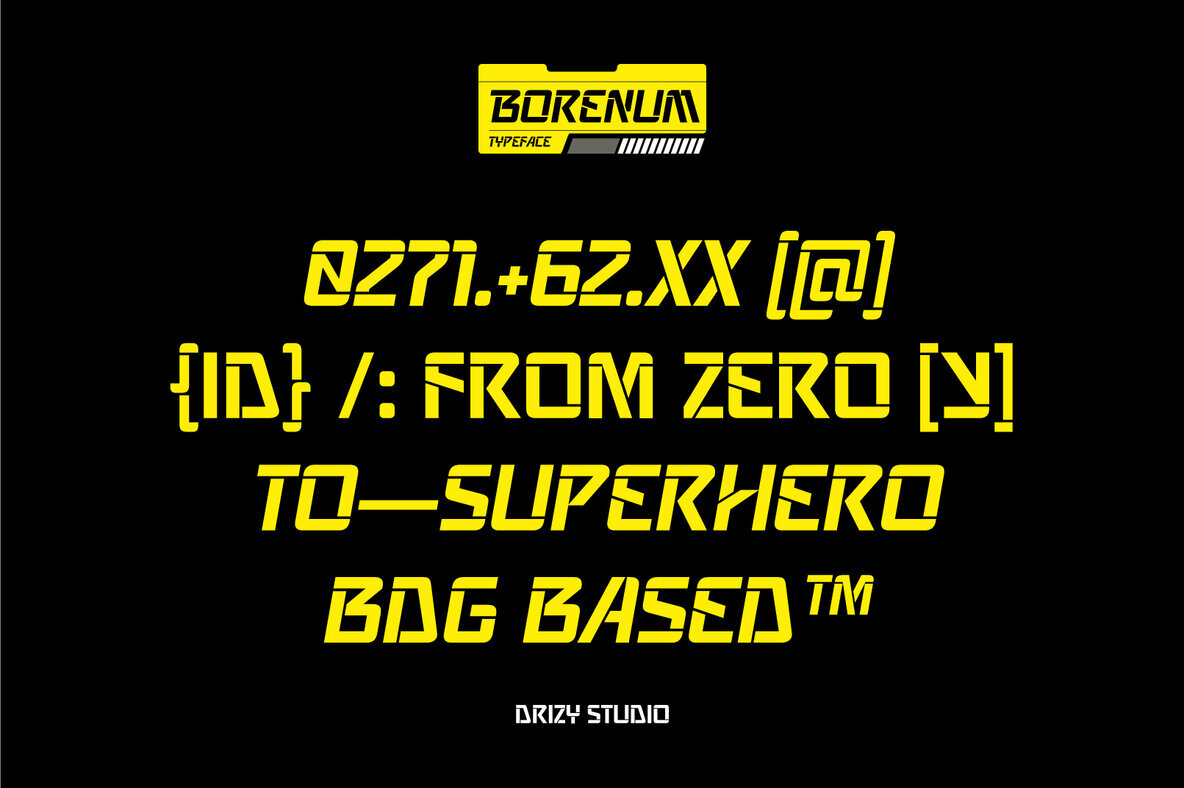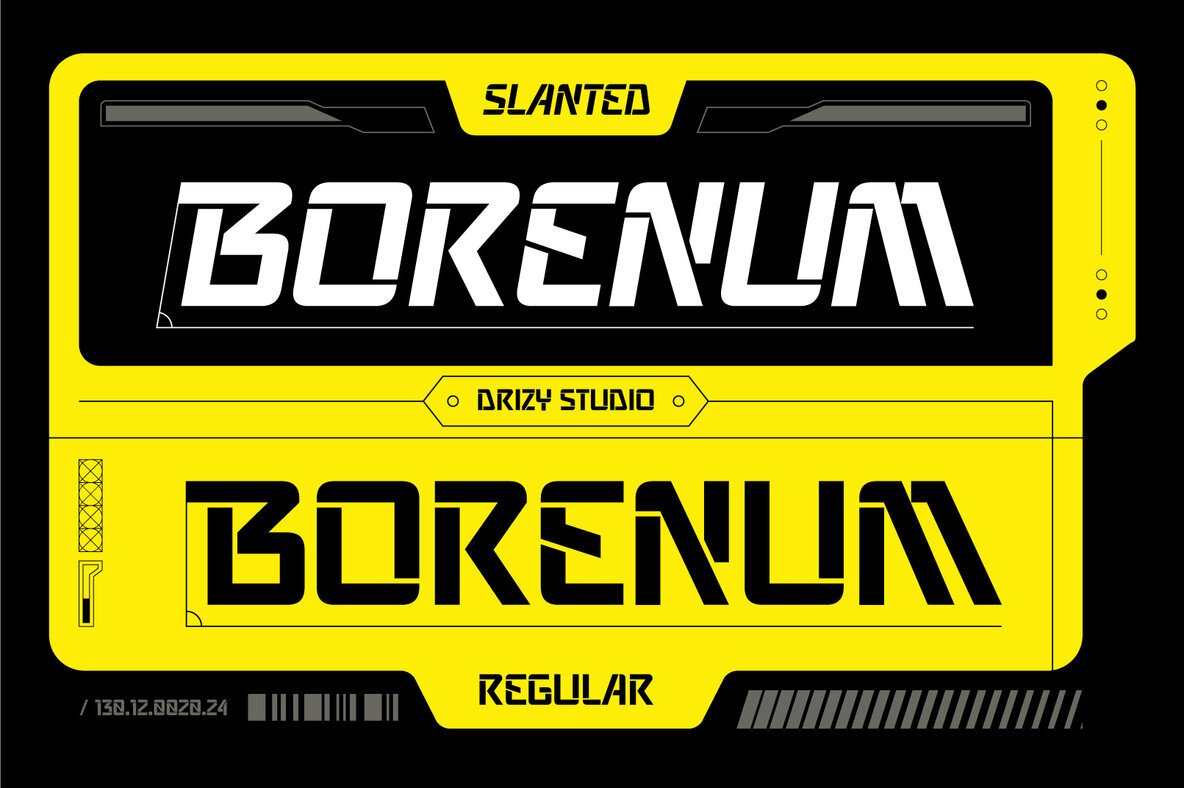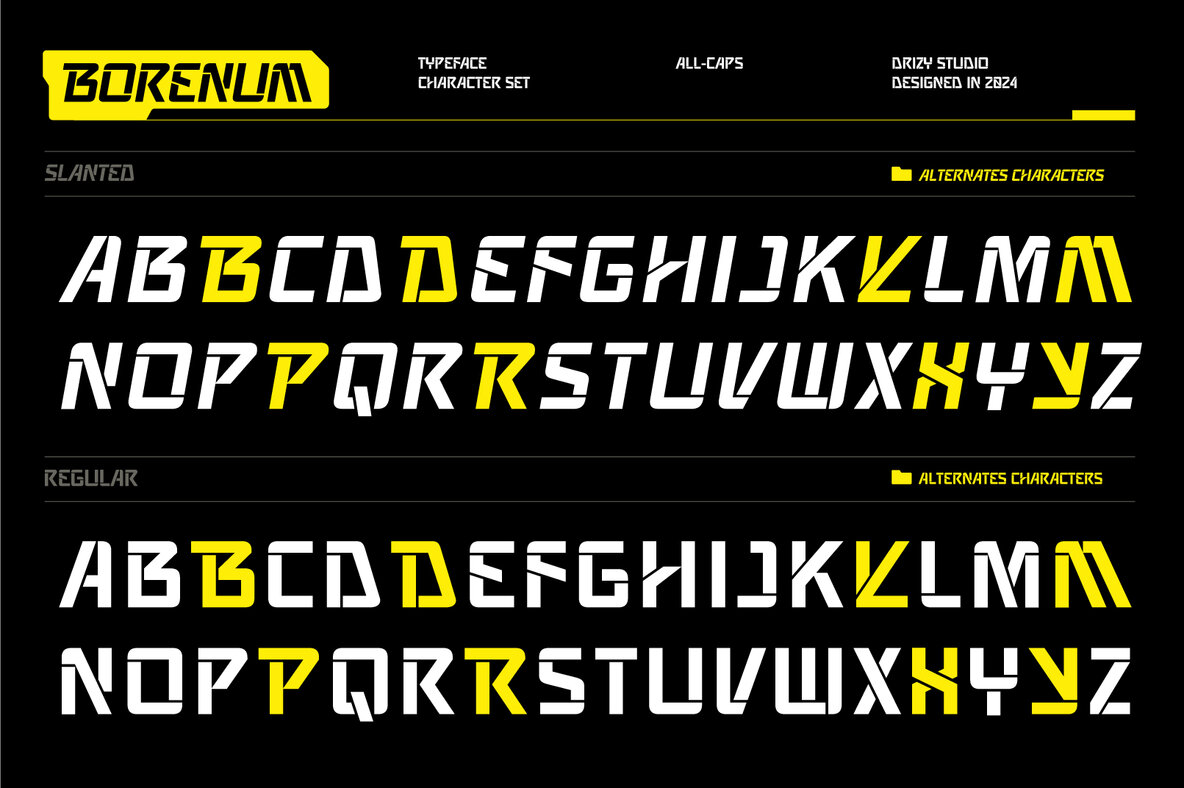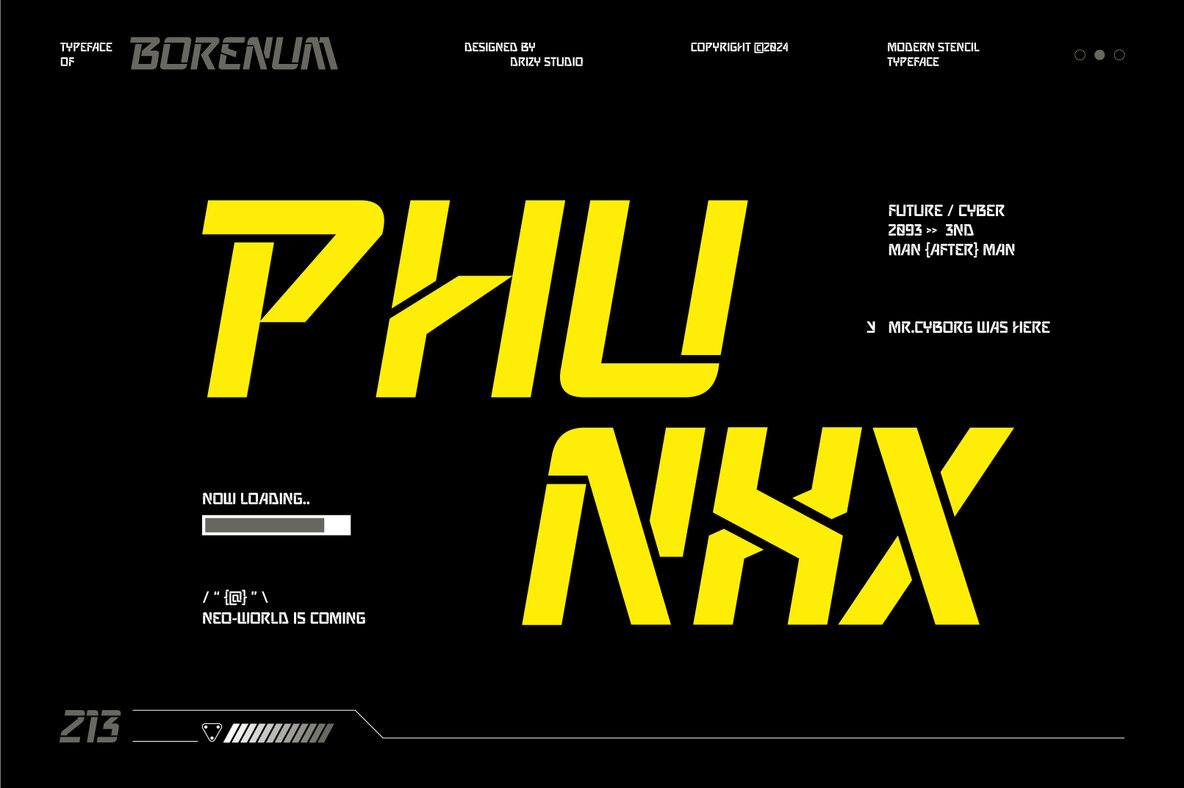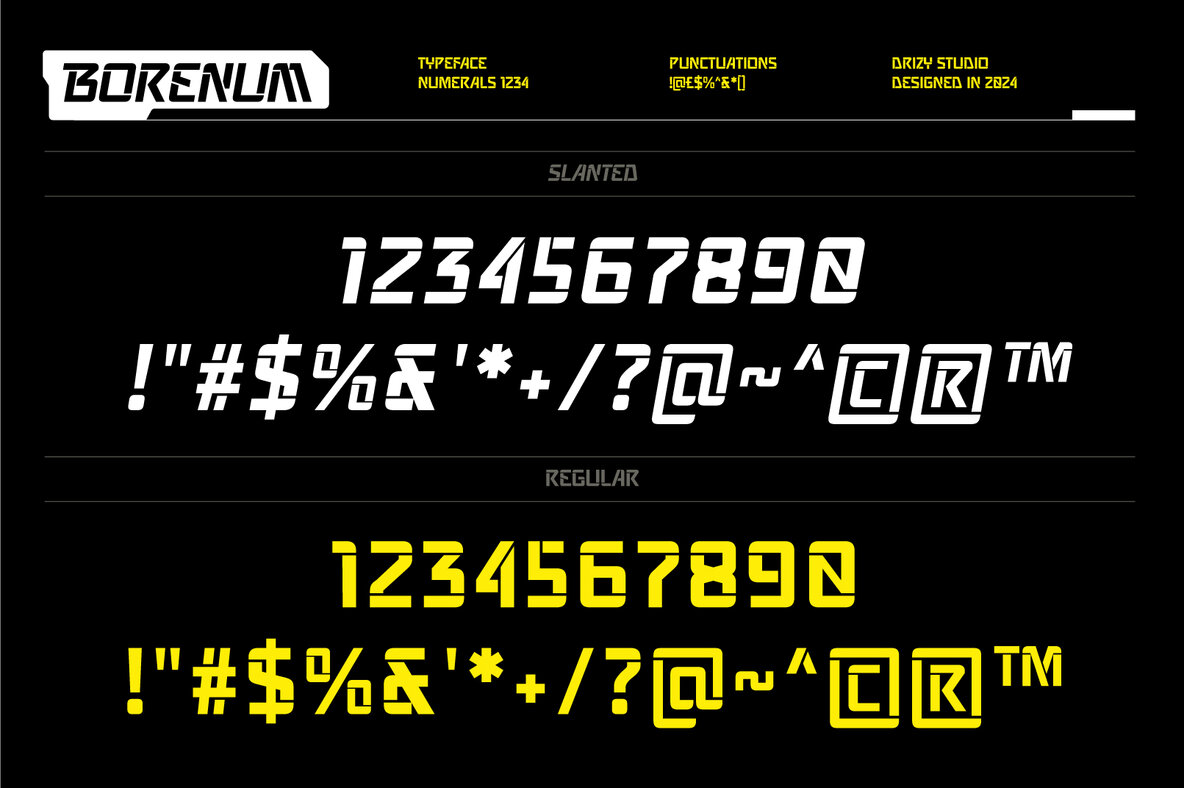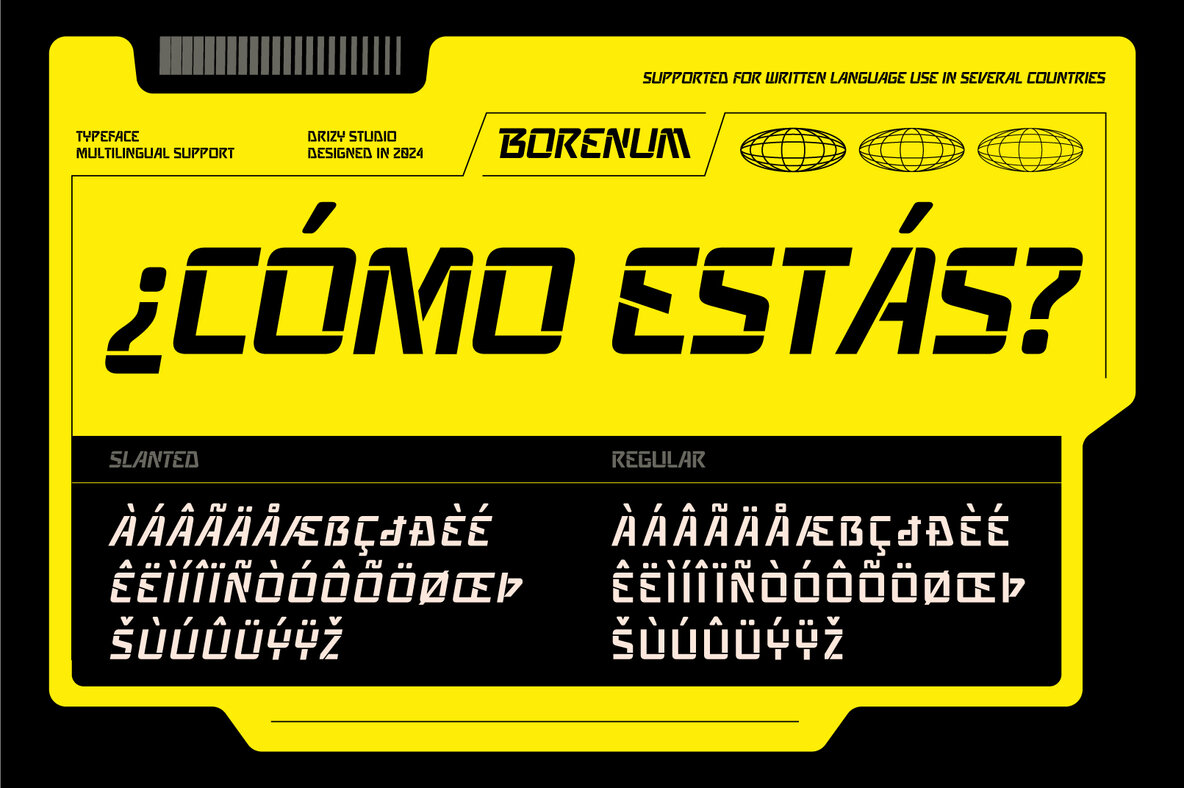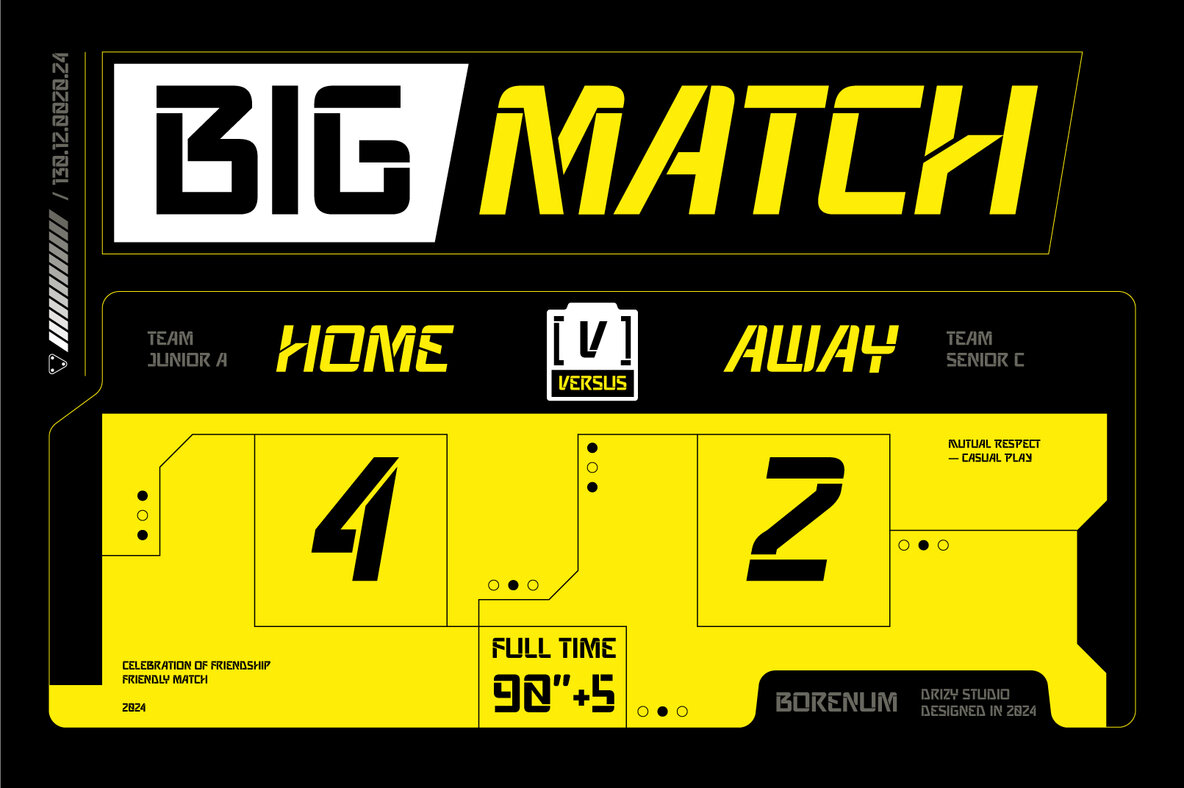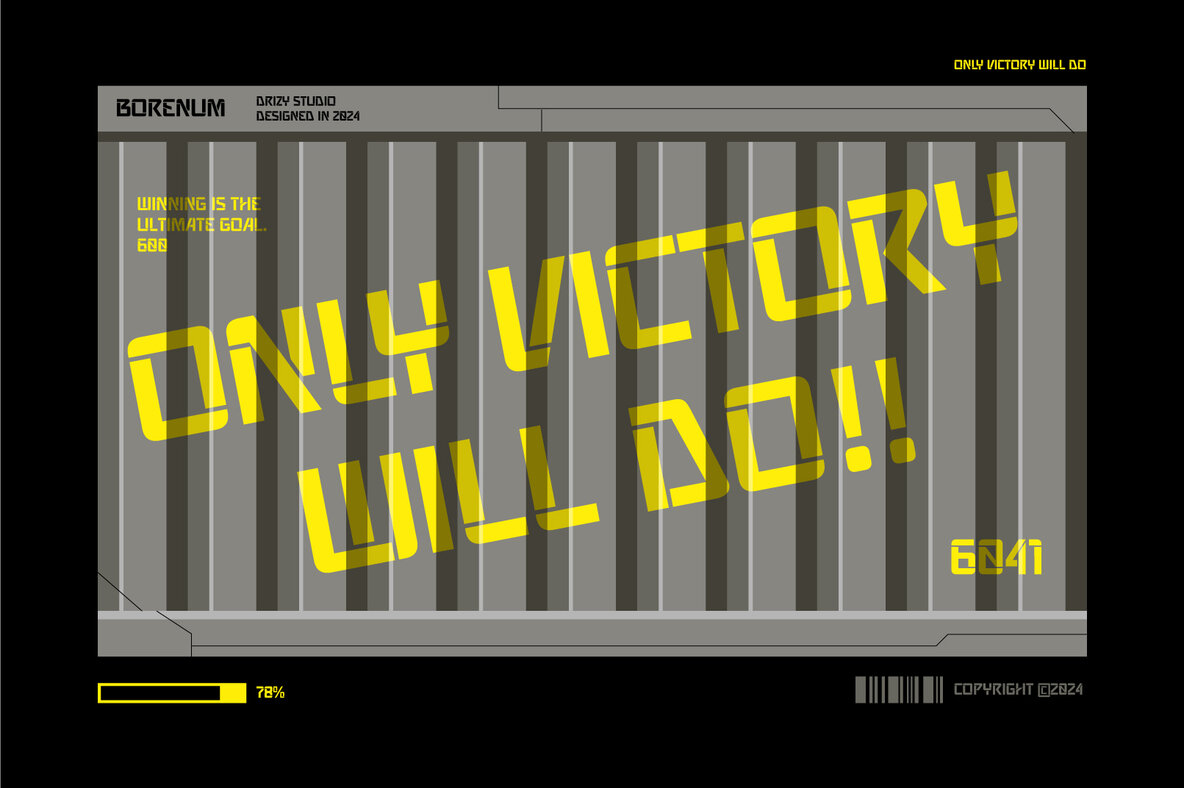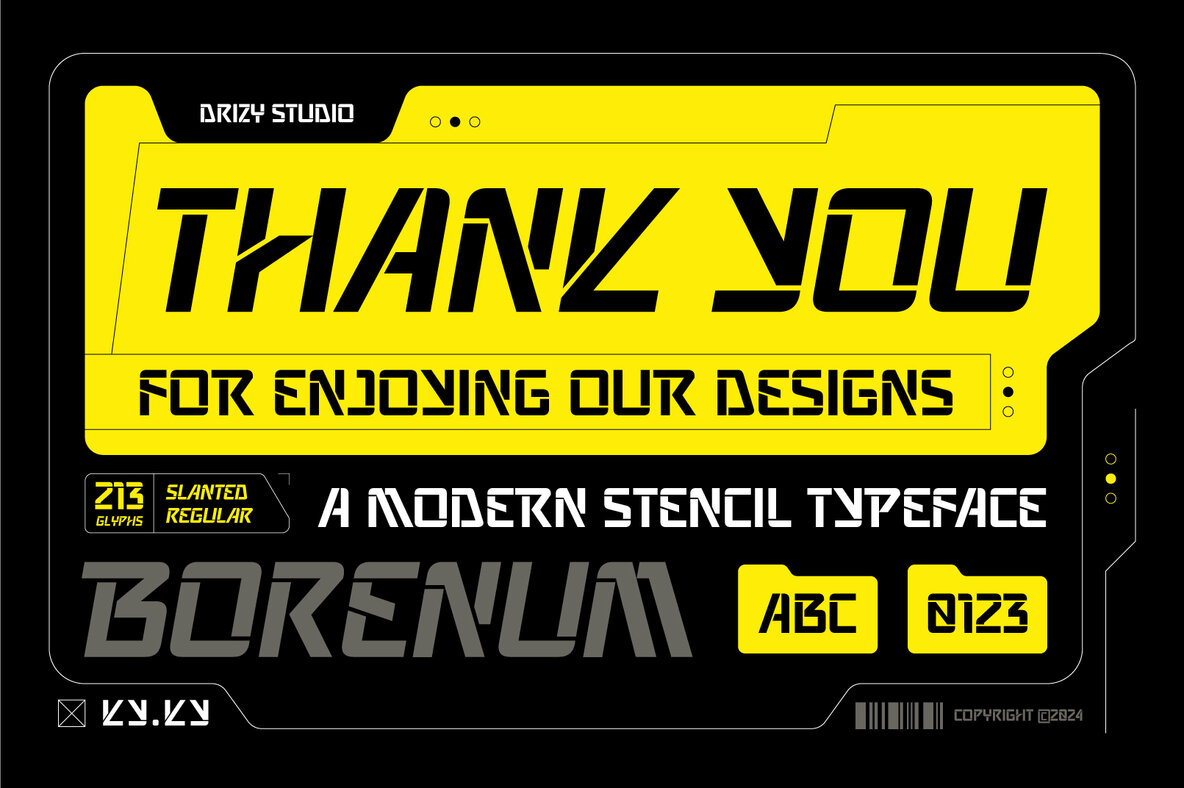
Borenum Font
Borenum is a bold and dynamic typeface meticulously designed for Esports and gaming aesthetics. With sharp stencil cuts and a sleek, modern appeal, Borenum delivers a powerful, precise energy that's ideal for gaming logos, team branding, and tournament posters. Its versatile structure makes it perfect for creating captivating titles and layouts that resonate with competitive, tech-savvy audiences. Make a statement in your digital designs with a font crafted to excel in the digital arena.
Borenum includes an all-caps character set, punctuation, numbers, and multilingual support, offering both regular and slanted styles. It also provides alternate designs for letters B, D, P, and R, allowing for diverse and engaging design possibilities. Let Borenum enhance your Esports designs with its distinctive style.